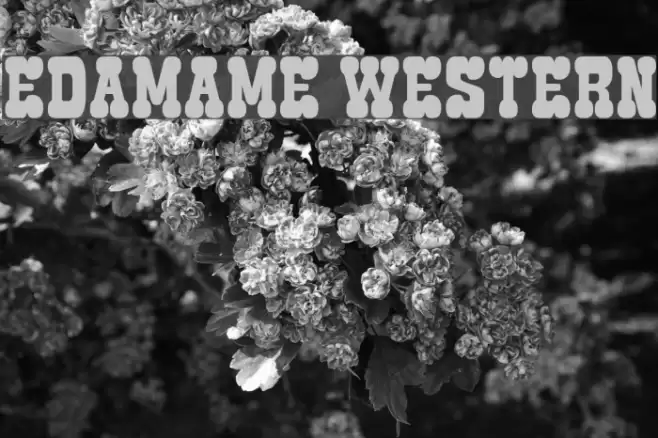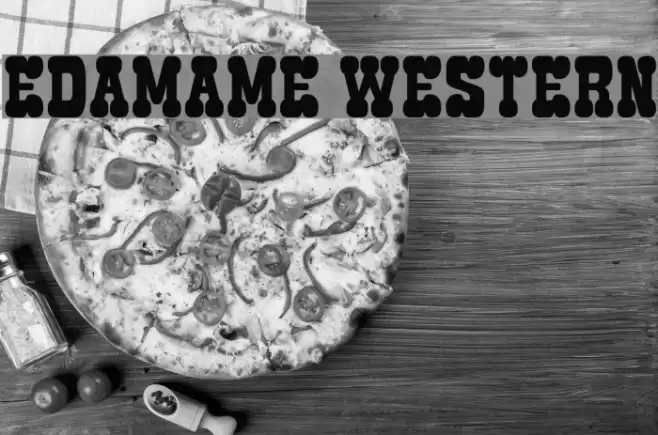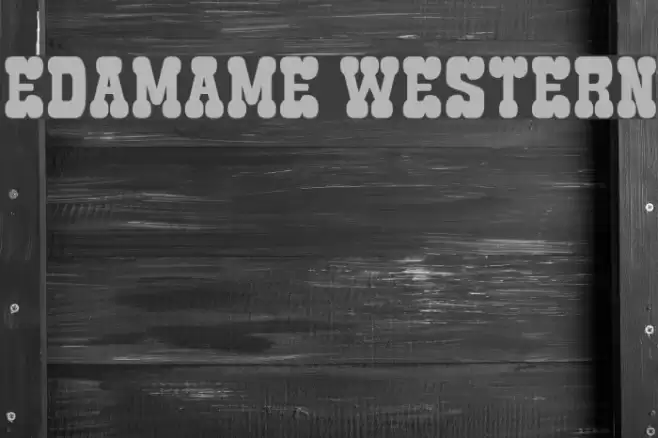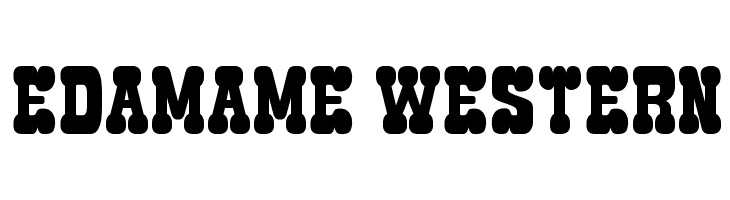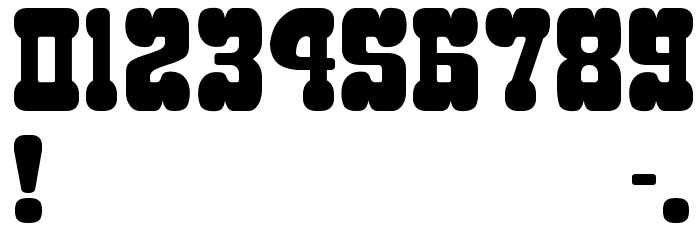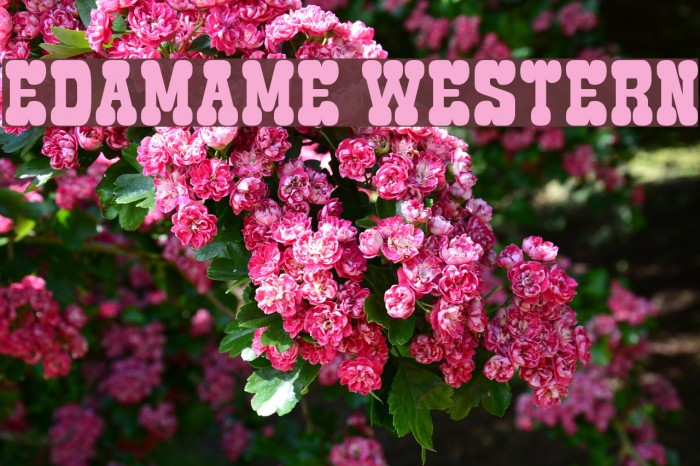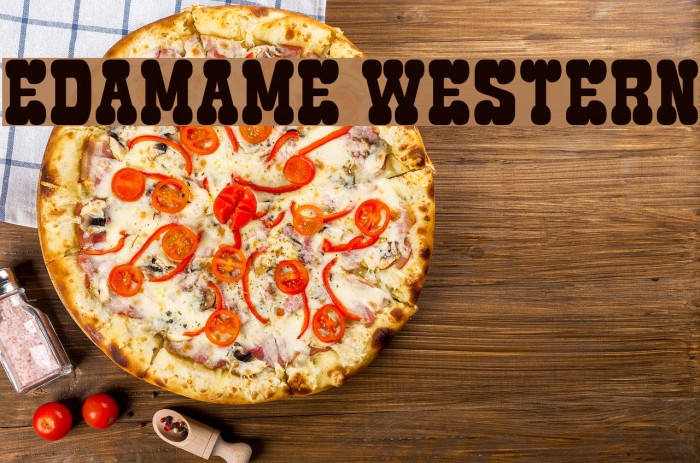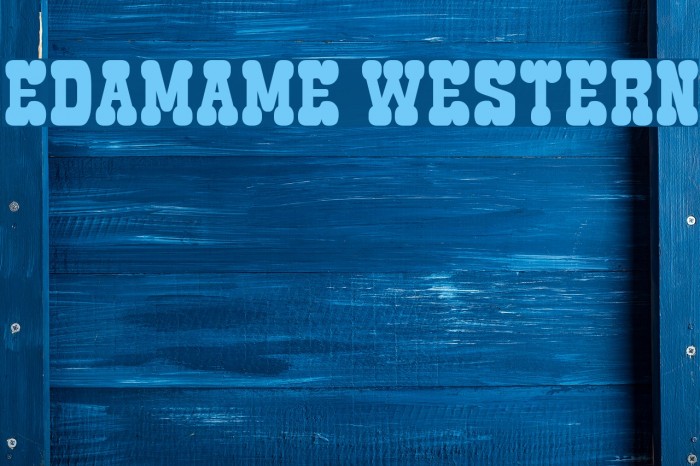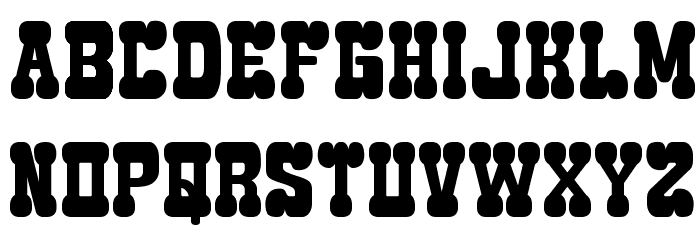
Edamame Western Font
Edamame Western Description
This font features a bold and robust design with thick, rounded strokes that give it a strong and impactful presence. The characters are uniformly wide, with a distinct Western-inspired aesthetic that evokes a sense of ruggedness and adventure. The uppercase letters are particularly striking, with their solid, block-like appearance, while the numerals and punctuation maintain the same bold style. The font's unique design makes it ideal for projects that require a touch of vintage charm and boldness.
A bold, Western-inspired font with thick, rounded strokes and a vintage charm from Uncategorized fonts.
- Proposed Projects: Perfect for posters, signage, branding projects, and any design that needs a bold, vintage Western feel.
- Overall Style: Vintage